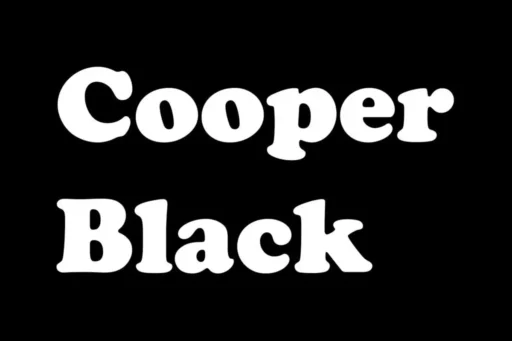
Cooper Black Font
Cooper Black is a font that has been widely used in many designs across the years and has a unique style that is easily recognizable. Created by Oswald Bruce Cooper and issued by Barnhart Brothers & Spindler type foundry in 1922, Cooper Black is one of the many typefaces that began to appear on the market in the early twentieth century, a time when typography was rapidly evolving. Designers of this period started experimenting with the conventional typeface to generate fonts that were not only legible but also aesthetic and artistic.
The most important characteristic of Cooper Black is that it is very round all over the place. The warmth is apparent in every facet of each letter: the curves are perfectly rounded, inviting the touch. Moving from the round ‘O’ to the more moderately sloped ‘S’, angles are not defined as the logo appears to be welcoming and welcoming. Not the sharp edges of the letters, like ‘A’ and ‘V’, are sharp but are more blurred with round peaks. This overall roundness gives Cooper Black an air of playfulness that is somewhat closer to childishness.
Cooper Black’s serif is anything but delicate and understated. They are greatly magnified, which gives an apparent bulk to the typeface. These bulbous serifs add to the font’s overall boldness and whimsy and also give the font a more retro feel. Due to their size, they are one of the most recognizable features of the font and add a certain degree of cuteness to it.
Most typefaces have a high contrast between the thick and thin parts of the lettering but Cooper Black is not one of them. The variation in stroke weight is barely noticeable, which gives the typeface a rather heavy, almost square shape. This low contrast is helpful in giving the font a bold look, especially at larger sizes, while still being very readable.
Last but not least, the fact that Cooper Black comes in different weights ranging from regular to ultra-bold presents designers with options and control. This range enables the adjustment of how much the font is going to pop out, whether as a supporting element or as the main focus. For this reason, Cooper Black is a versatile font to have in any toolbox of a designer.
Cooper Black font is suitable for headlines and display purposes. A large and distinctive logo and design make it impossible to ignore; it is equally at home on a magazine cover, a poster or as a banner on a website. Cooper Black is quite readable, even in bigger sizes, so your message will still get across effectively and with power.
Cooper Black is a time machine in typeface form. Being a creation of the mid-twentieth century, it perfectly captures the essence of nostalgia and retro aesthetics. This makes it the ideal choice for designs that seek to take the audience back in time. From car show posters to old-school packaging, from menus of vintage diners, Cooper Black provides that classic appeal.
Due to the curves and low contrast, Cooper Black looks friendly and fun. It is a font that makes one happy and encourages engagement. This makes it ideal for projects that seek to portray playfulness, friendliness, and relaxation. From children’s books with cute titles, greeting cards with lovely messages, playful logos for creative businesses, or fun social media images. Cooper Black brings joy and individuality to any design.
The strong and unique features of Cooper Black can be quite useful for logo design and creating brand recognition. For companies that would like to have a playful, retro, or friendly atmosphere, Cooper Black is a great font to use. If applied to logos, advertisements, and signs, it helps consumers easily identify and remember a specific company and its products.
Although Cooper Black may suit your needs well, there are other fonts with a similar feel but with some variations. Impact, another font with sans-serif type, offers a similar level of impact and chunkiness yet has a more contemporary appearance, given that it lacks serifs. This type is preferred when the highest degree of prominence is needed. Windsor, on the other hand, resembles Cooper Black’s rounded forms and low contrast, but its cleaner and finer serifs give it a touch of sophistication that fits formal design projects.
If you are partial to Cooper Black’s retro appeal, Goudy Heavyface is a timeless option. As a “fat face” font with large serifs, it resembles Cooper Black in its rounded forms and low contrast yet possesses the gracefulness of a 19th-century display typeface. If you are in search of a font that is a closer imitation of Cooper Black, then Bogue Font is a great choice. Bogue is a contemporary sans-serif typeface that reflects the spirit of the original in both regular and oblique styles – perfect for headlines and copy.
Cooper Black is a font family of rounded serif fonts designed by the American typeface designer Oswald Bruce Cooper back in 1921. The shape of the furniture is playful and chunky, often resembling pieces from the 80s and 90s, which is why it is often associated with retro design.
Cooper Black is well-known for its distinctive look, versatility, and tradition. Its simple and fun shape is easy to remember and its connection with mid-century design gives it a retro feeling.